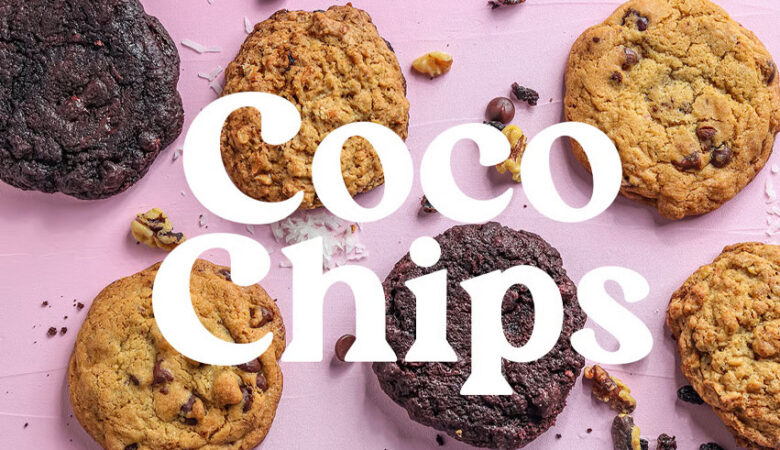
Readfine Font is a striking and contemporary sans serif display font intended for use to stand out. Clean and clearly defining shapes make Readfine a versatile font, which can help add sophistication to any given design. Suitable for logos, posters and headlines, as well as branding, this font gives any text a unique look that can be easily noticed in both print and online media.
Comes in two styles, the Regular and Rounded, Readfine is suitable for all sorts of designs regardless of the project’s purpose. Discover Readfine – a typeface that boosts creativity and creates an ambiance of boldness and clear vision in typography.